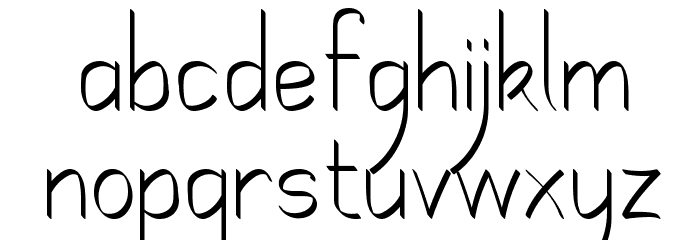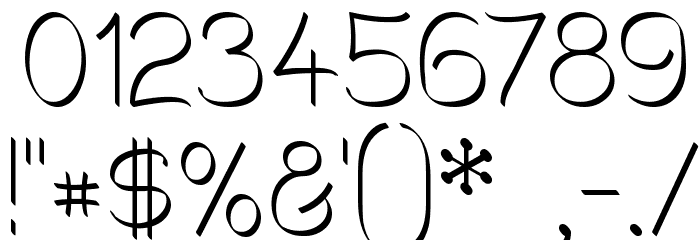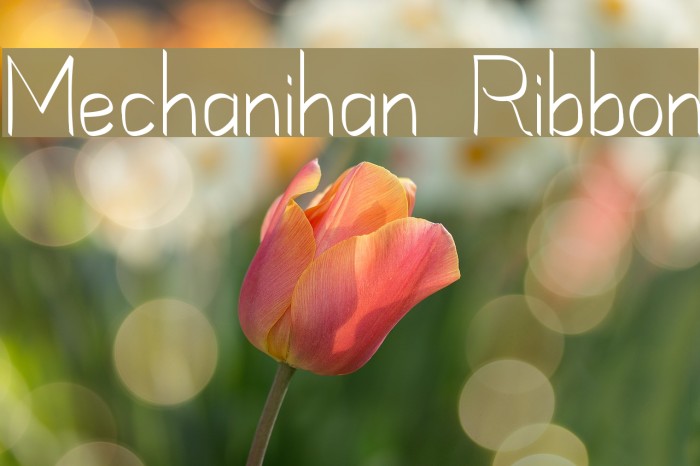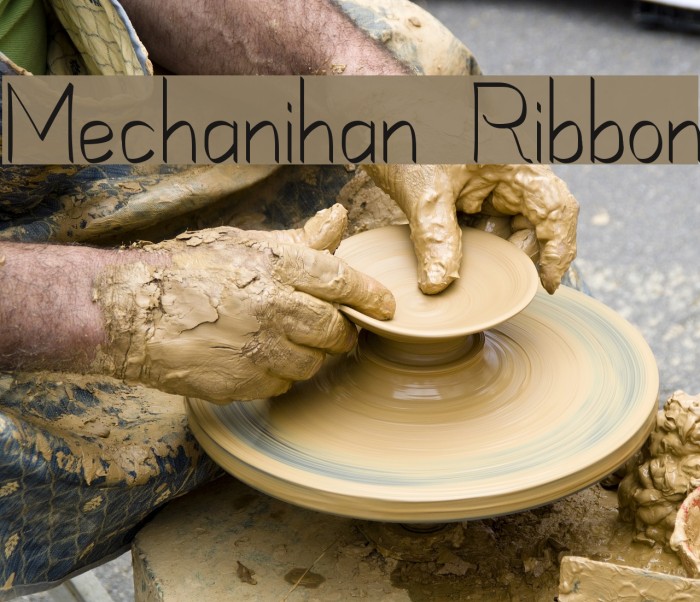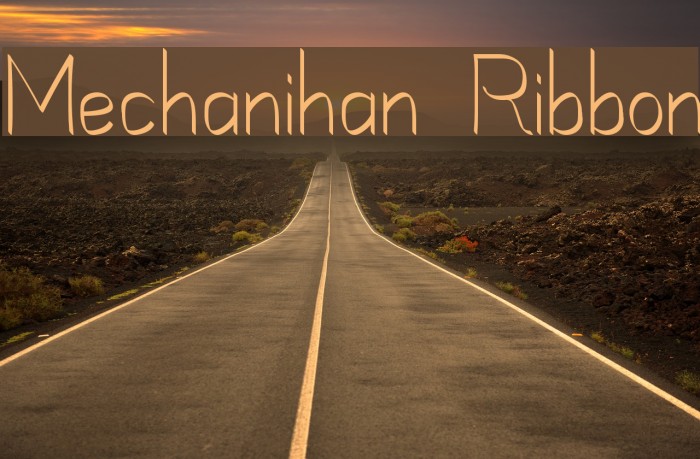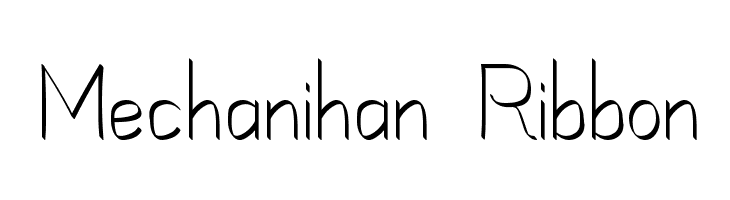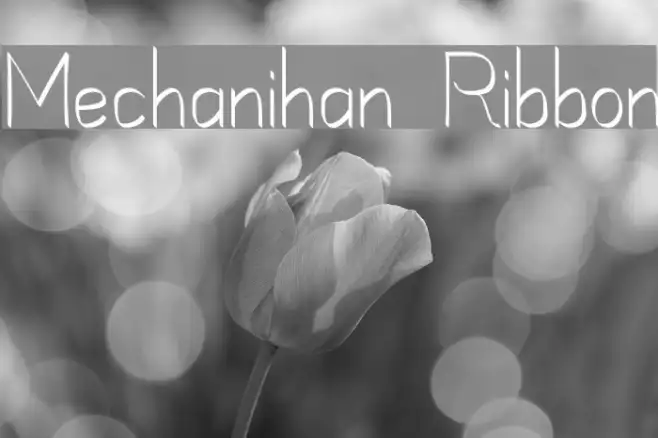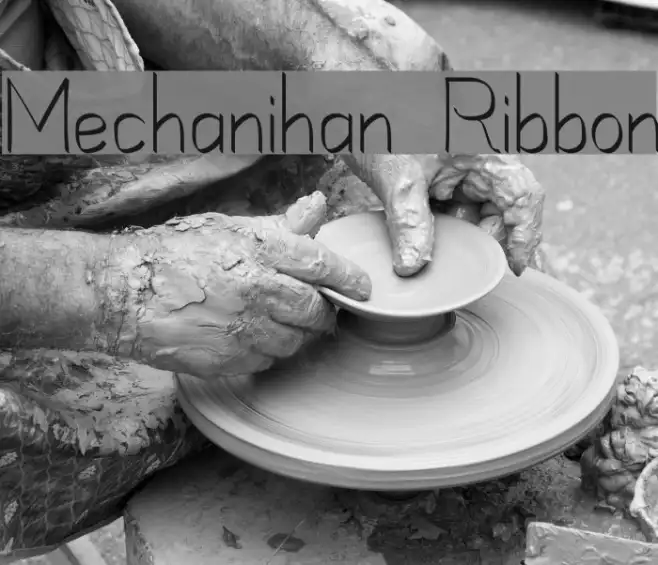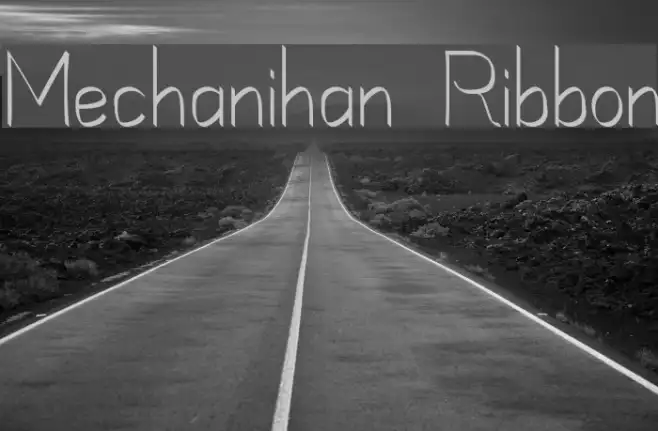
Mechanihan Ribbon Font
This font features a unique and elegant design with a ribbon-like quality, characterized by its smooth curves and flowing lines. The uppercase letters are tall and slender, while the lowercase letters maintain a consistent style with slightly more rounded forms. The numerals are distinct and easy to read, complementing the overall aesthetic. Special characters are creatively integrated, maintaining the font's cohesive look. The font's style is both modern and artistic, making it suitable for a variety of creative projects.
A modern, ribbon-like font with smooth curves and flowing lines.
- Proposed Projects: Ideal for branding, invitations, artistic posters, and creative digital content.
- Overall Style: Modern, Artistic
- Use Case: Logos, Headlines, Artistic projects